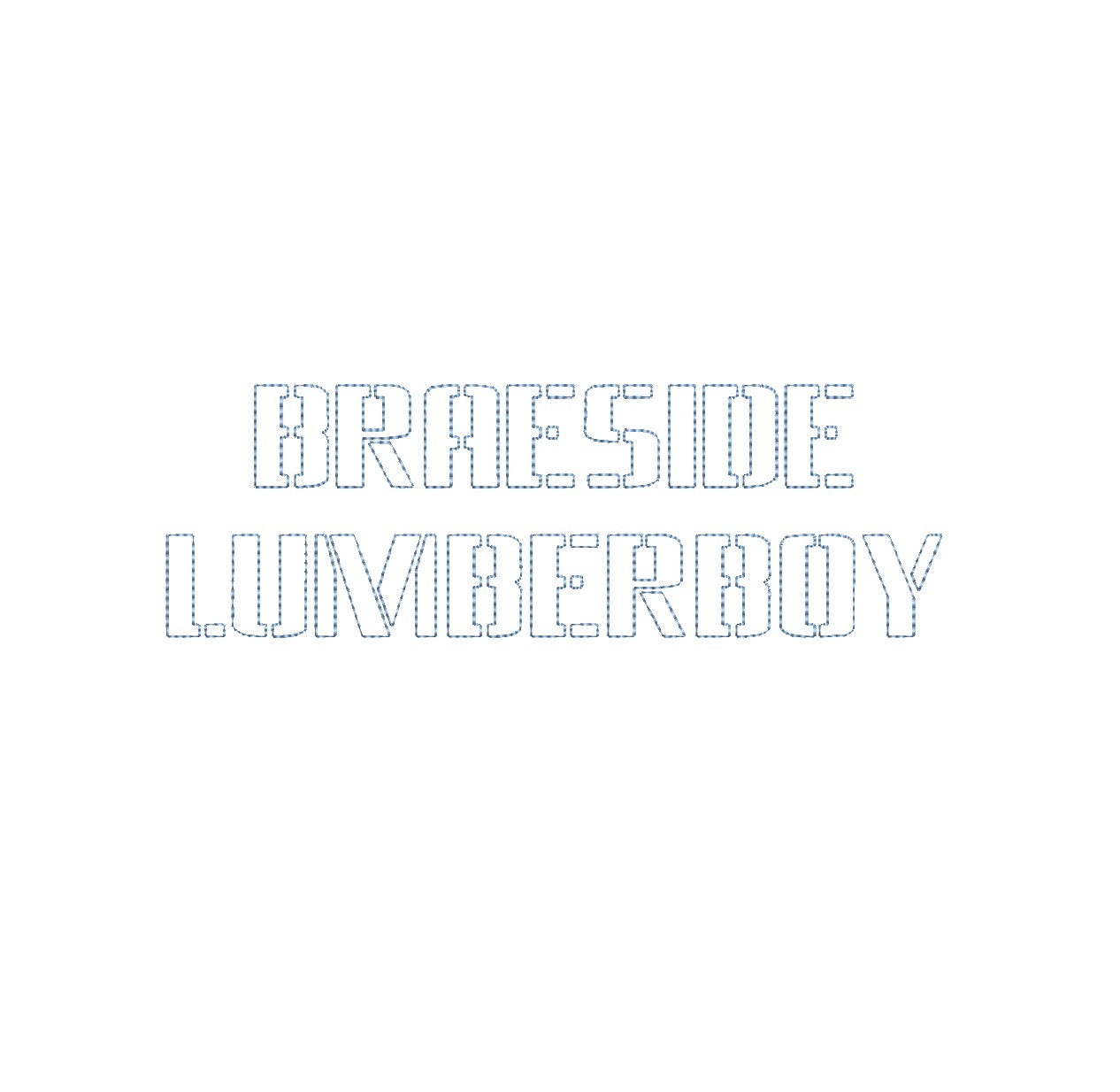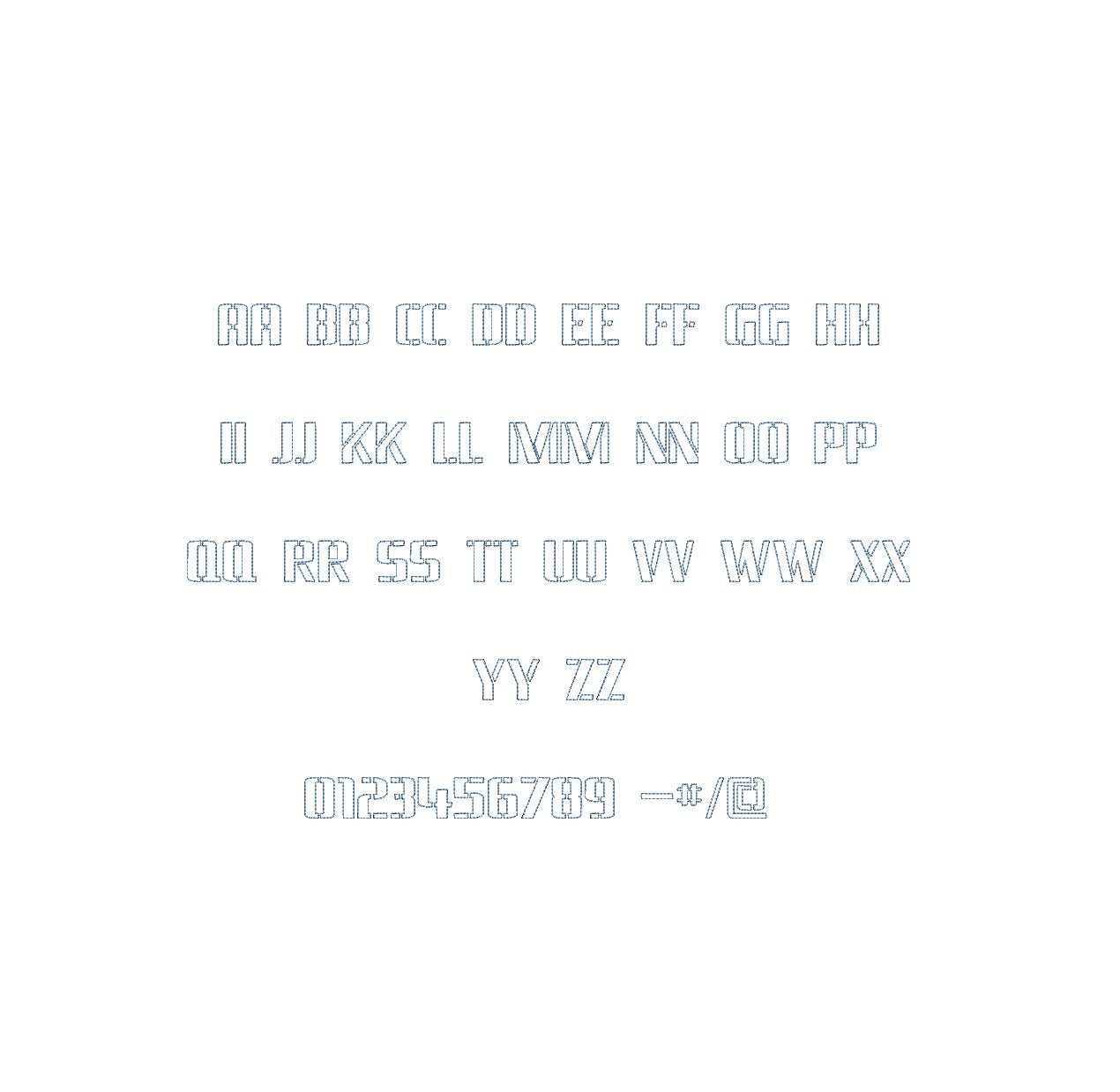
Elevate your embroidery projects using the Braeside Lumberboy Bean Stitch Outline ESA font. Designed for Wilcom Studio e4.5.6 and Hatch 3 versions and up, this font ensures seamless compatibility. Its unique lumberboy bean stitch outline adds a rustic charm to your designs. With the ESA format, achieve precision and ease during digitization. Transform ordinary fabrics into extraordinary works of art with the Braeside Lumberboy Bean Stitch Outline ESA font. Elevate your embroidery game and infuse your creations with character today.